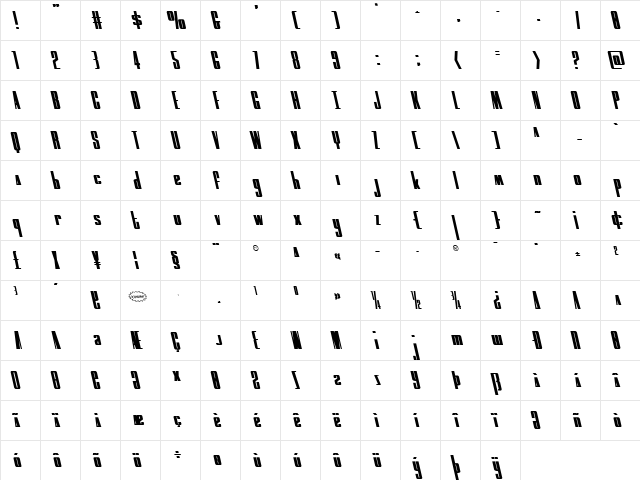
MOON Runner Leftalic Italic
Design Context for MOON Runner Leftalic Typeface
MOON Runner Leftalic is a composed and adaptable typeface that performs quietly and consistently across a wide range of design contexts. The dynamic lean of this cut emphasises speed and emphasis in any layout.
Pro Tip: Try MOON Runner Leftalic for annotation and caption copy alongside an upright companion — the contrast in angle creates a dynamic but ordered typographic system.